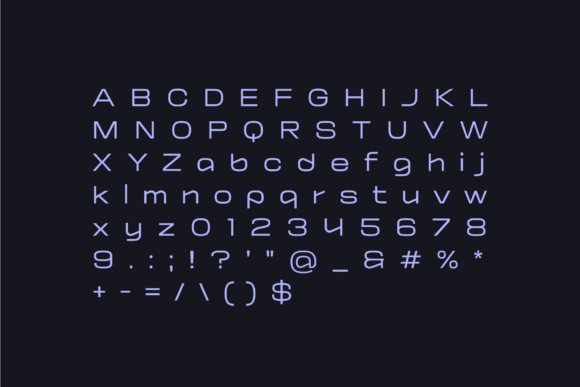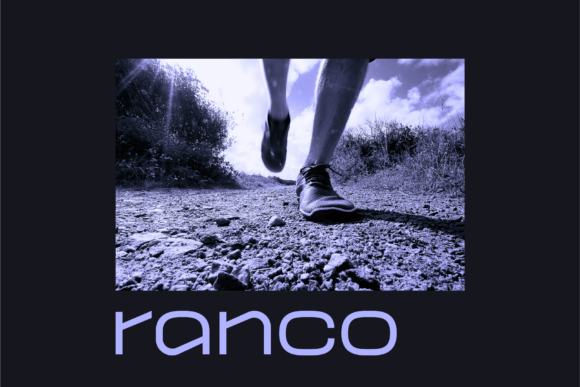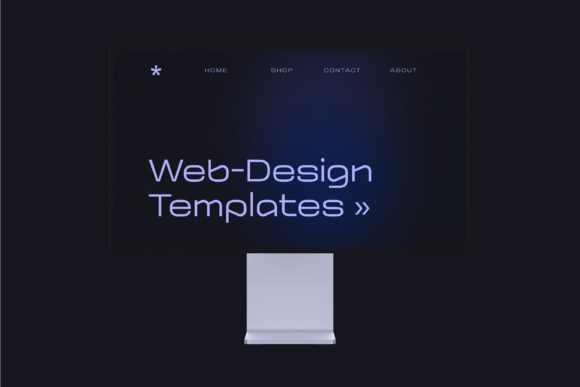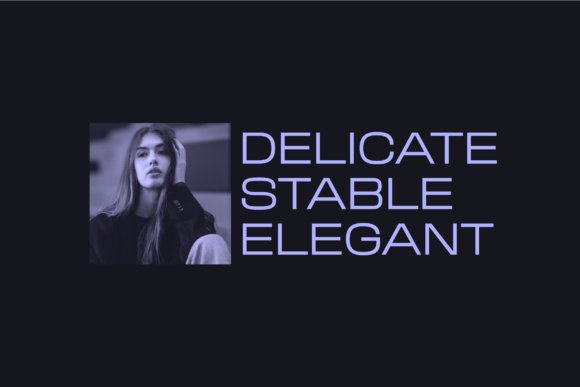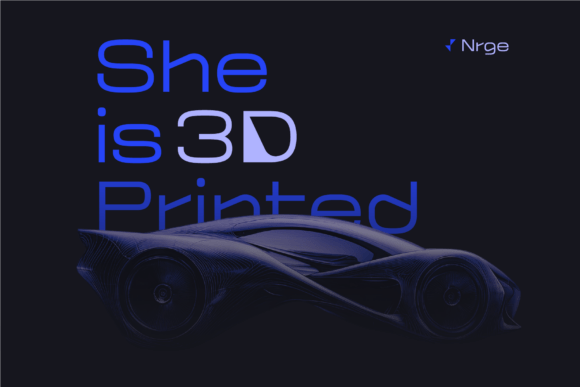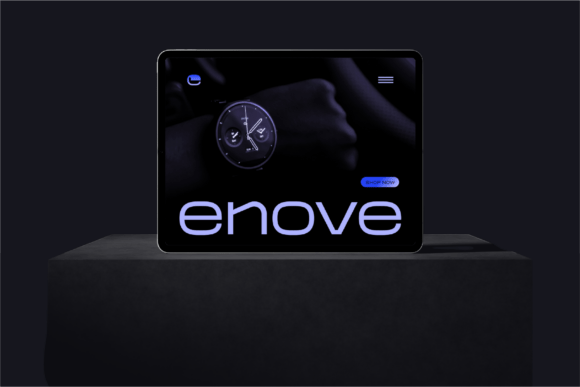
Introducing Anon Font: The Epitome of Modern Typography
In the realm of typography, fonts play a pivotal role in shaping brand identities and conveying messages with clarity and sophistication. Among the myriad of fonts available, Anon Font stands out as a beacon of modernity, elegance, and precision. Designed with the contemporary brand in mind, Anon is a futuristic yet elegant logo and display font that embodies the values of clarity, sophistication, and restraint.
The Design Philosophy of Anon Font
Anon Font is the brainchild of designers who sought to create a typeface that would meet the evolving needs of modern brands. Its design philosophy revolves around the creation of a refined techno-minimal aesthetic. This is achieved through its smooth curves, open forms, and balanced geometry, which collectively contribute to a sense of elegance and forward-thinking.
Key Features of Anon Font
- Smooth Curves and Open Forms: These features ensure that the font exudes a sense of fluidity and approachability, making it relatable and engaging for audiences.
- Balanced Geometry: The geometric balance of Anon Font lends it a stability and reliability that is crucial for brands aiming to establish a strong and trustworthy image.
- Techno-Minimal Aesthetic: By merging technology-inspired elements with a minimalist approach, Anon achieves a distinctive look that is both futuristic and timeless.
Applications of Anon Font
Anon Font’s versatility makes it suitable for a wide range of applications, particularly where precision and visual confidence are paramount. Some of its primary uses include:
- Logos: Anon Font’s unique and elegant design makes it an excellent choice for logos, helping brands to stand out and make a lasting impression.
- Headlines: Its readability and aesthetic appeal make it perfect for headlines, whether in digital media, print, or online platforms.
- UI Elements: In digital product design, Anon Font can enhance user interfaces, making them more intuitive and visually appealing.
- Digital Interfaces: For websites, apps, and other digital platforms, Anon provides a typographic solution that is both functional and beautiful.
Why Choose Anon Font for Your Brand?
In a crowded marketplace, establishing a distinctive brand voice is crucial. Anon Font offers several advantages that make it an attractive choice for brands, especially those in technology, fashion, lifestyle, and creative sectors:
- Distinctive yet Timeless: Anon Font helps brands achieve a unique identity without compromising on timelessness, ensuring that their visual communication remains relevant over time.
- Suitability for Modern Brands: Its futuristic yet elegant design resonates well with modern audiences, making it an excellent fit for brands looking to project a contemporary image.
- Enhanced Visual Communication: With Anon Font, brands can enhance their visual communication, ensuring that their messages are conveyed with clarity, sophistication, and impact.
Anon Font represents a significant advancement in typography, offering a blend of futurism, elegance, and functionality that meets the demands of modern branding. Its design philosophy, characterized by smooth curves, open forms, and balanced geometry, results in a refined techno-minimal aesthetic that is both distinctive and timeless. Whether for logos, headlines, UI elements, or digital interfaces, Anon Font provides a versatile and powerful tool for brands seeking to elevate their visual identity and communicate with precision and confidence.
For designers and crafters, Anon Font opens up new possibilities for creative expression and brand storytelling. By incorporating Anon into their projects, they can help brands achieve a sophisticated and forward-thinking image that resonates with contemporary audiences. As the digital landscape continues to evolve, the relevance and appeal of Anon Font are set to grow, making it a valuable addition to any designer’s typographic arsenal.